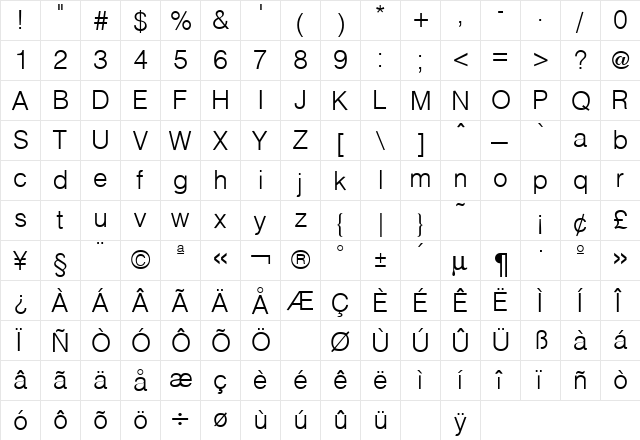
Hallmarke Light Regular
Design Context for Hallmarke Light Typeface
Hallmarke Light takes a measured approach to typography — its balanced proportions and neutral character make it a reliable workhorse for both digital and print work. The delicate stroke weight brings airiness and refinement to layouts.